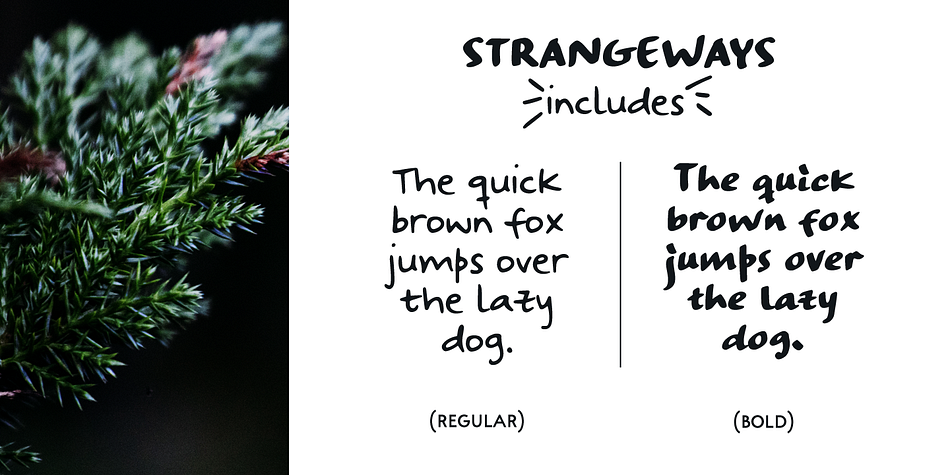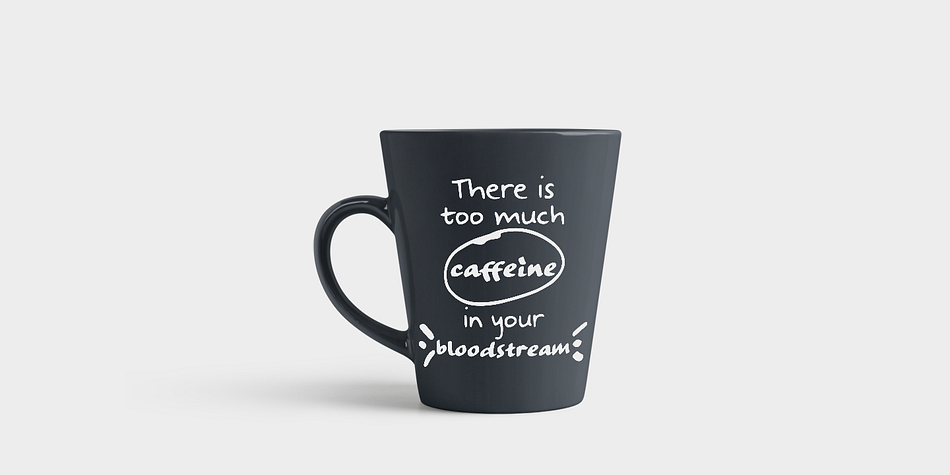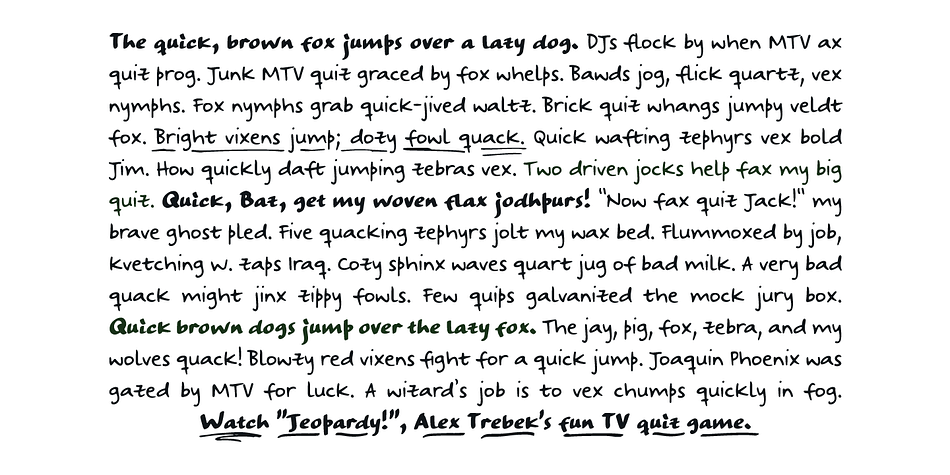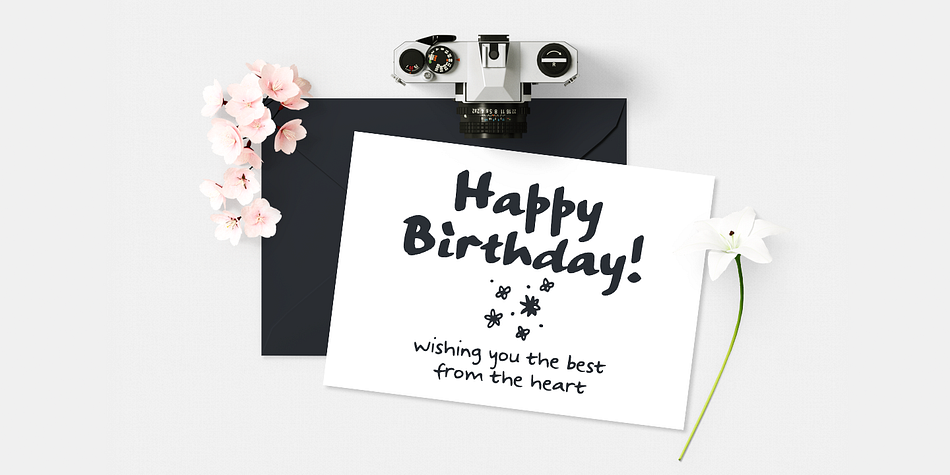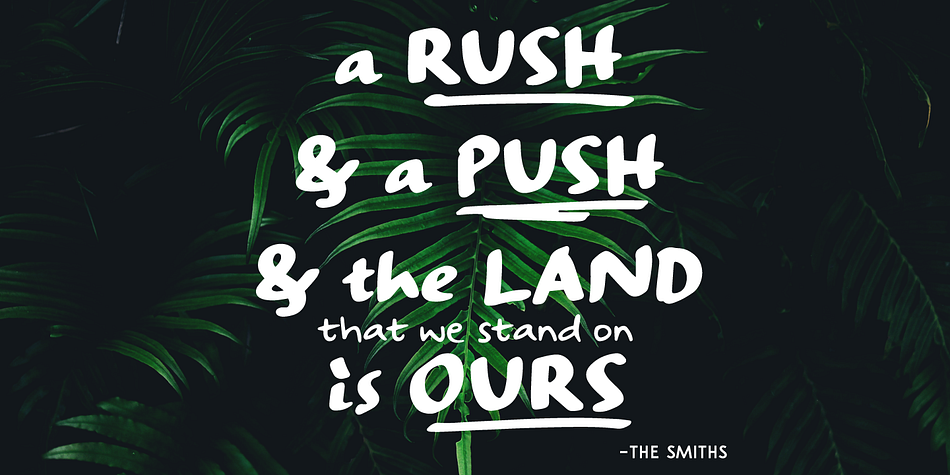
Designed by Ana Parracho, Strangeways is a hand drawn font family. This typeface has four styles and was published by Ana's Fonts.
Meet Strangeways! A cute handwritten font in 2 weights, bold & italic, with:
- A-Z, a-z, 0-9, accents punctuation and symbols
- Extra squiggles that can be used to underline, strike through or decorate your text.
It’s great for any of your cute designs, in quotes, postcards, logos.